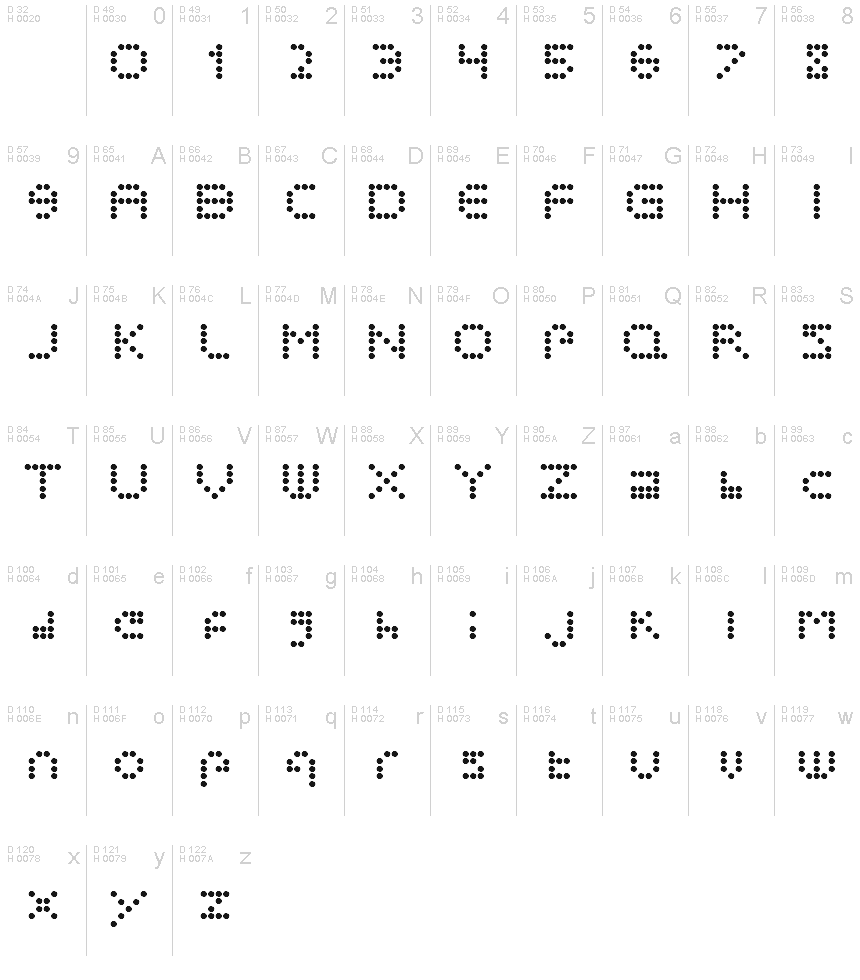
PolkaDotCrazy
"Polka Dot Crazy" is a striking digital display font that exudes a whimsical, playful charm. Designed by Coral Pragier, this font boasts a delightfully irregular, pixelated aesthetic, with each character resembling a cluster of dotted squares. The uneven, asymmetrical shapes create a dynamic, almost glitchy appearance, lending the font an endearing quirkiness.
This font's distinctive style lends itself well to attention-grabbing headlines, bold branding, and imaginative typographic designs. Its vibrant, retro-inspired vibes make it a fitting choice for a variety of modern, youthful applications, from album covers and event posters to packaging and promotional materials. "Polka Dot Crazy" is a versatile font that can add a dose of quirky personality to any design project.